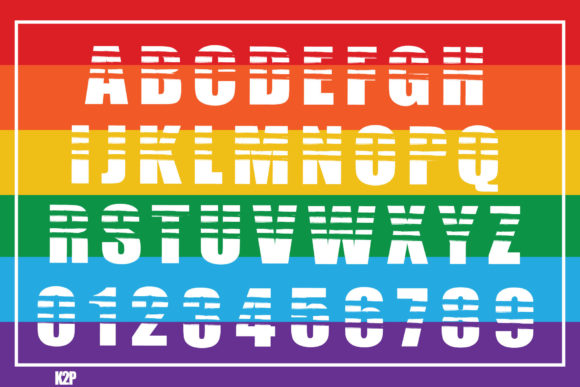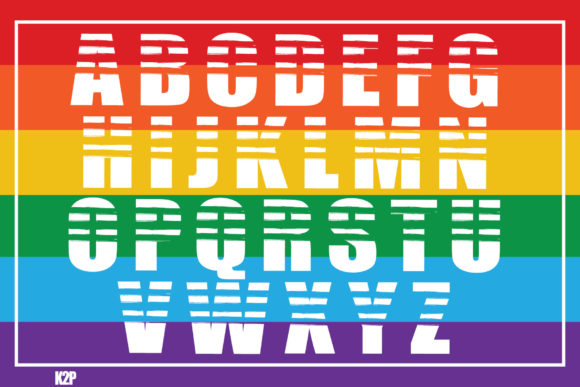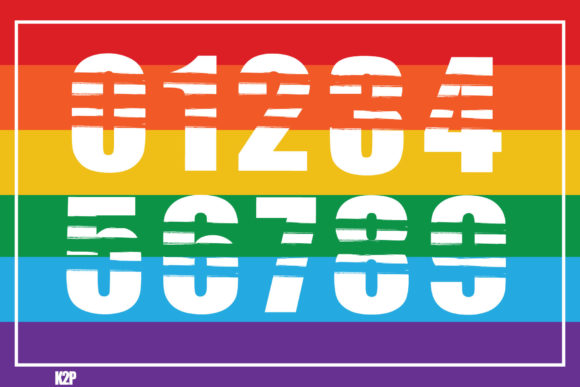
Introduction to Pride LGBTQ Font
You’re in the middle of a creative project, and suddenly, the perfect font pops into your mind. It’s bold, eye-catching, and screams “I’m here, I’m proud, and I’m unapologetic!” That’s exactly what you get with the Pride LGBTQ Font – a high-quality, assertive display font that’s perfect for any design project.
As a designer, you’re always on the lookout for unique and versatile fonts to elevate your work. The Pride LGBTQ Font is an incredible resource that will add a touch of sophistication and creativity to your posters, flyers, and prints. With its transparent background, you can easily layer it over any design element, making it an excellent choice for your next design project.
Pride LGBTQ Font
- High-quality design resource for creative projects
- Features a transparent background, allowing for easy customization and composition
- Unique characteristics include a bold, colorful, and playful design, perfect for expressing pride and inclusivity
- Can be used for a variety of creative projects, including posters, flyers, and digital art
Honest Review: Pride LGBTQ Font
As a designer, I’m always on the lookout for high-quality design resources to elevate my creative projects. Recently, I stumbled upon the Pride LGBTQ Font, and I must say, it’s a fantastic addition to my design arsenal.
Here are some things that work well:
- ✨ The font is highly customizable, allowing me to easily adjust the color, size, and style to fit my design needs.
- ✨ The transparent background makes it easy to layer with other design elements, giving me a seamless look.
- ⚠️ The font selection is limited to a few styles, which may not be suitable for all design projects.
Overall, I’m impressed with the Pride LGBTQ Font. It’s a great resource for designers who want to add a touch of personality to their creative projects. The high-quality design and free download make it a valuable addition to my design library.
Pride LGBTQ Font
Tips for Getting the Most Out of Pride LGBTQ Font
Here are some tips to help you get the most out of the Pride LGBTQ Font:
- Use it in combination with other design elements to create a cohesive look.
- Experiment with different font sizes and colors to make your design stand out.
- Use the font to highlight important information or create a sense of hierarchy in your design.
The Pride LGBTQ Font is perfect for:
- Designing posters and flyers for Pride events and celebrations.
- Creating social media graphics and content that promotes diversity and inclusivity.
- Adding a touch of personality to your presentations and documents.